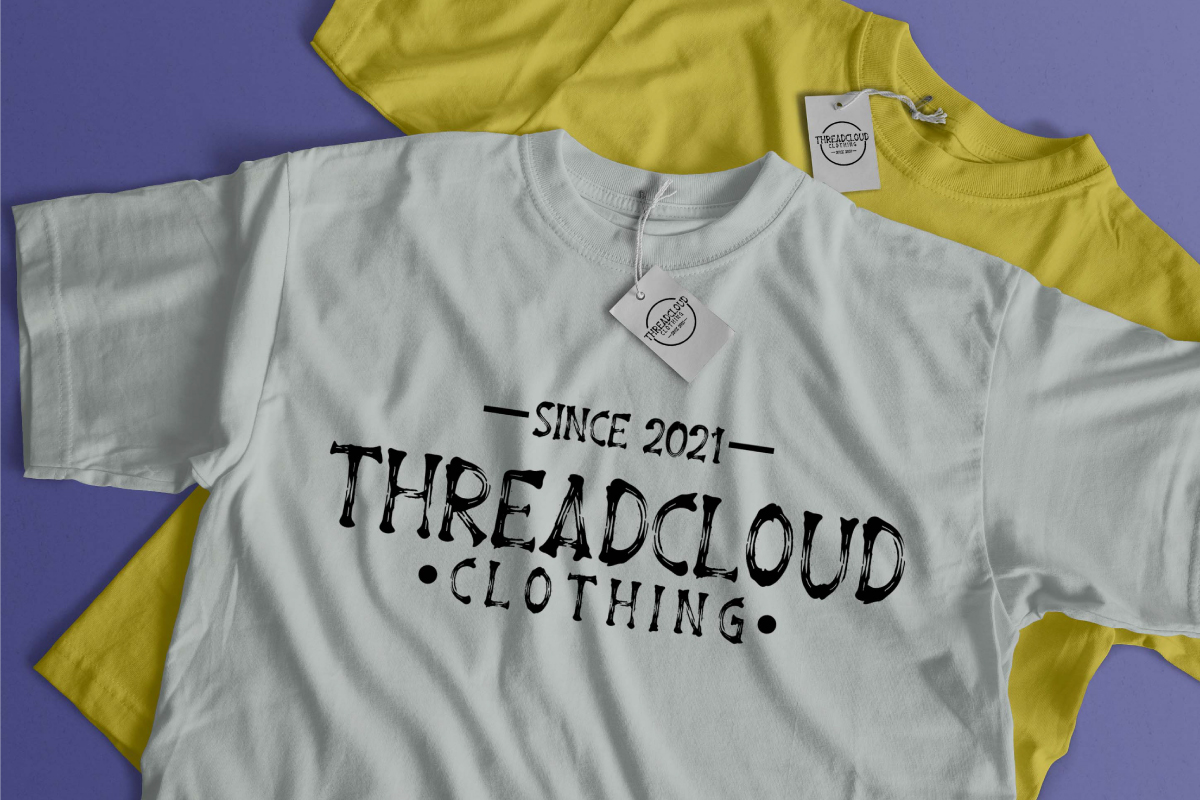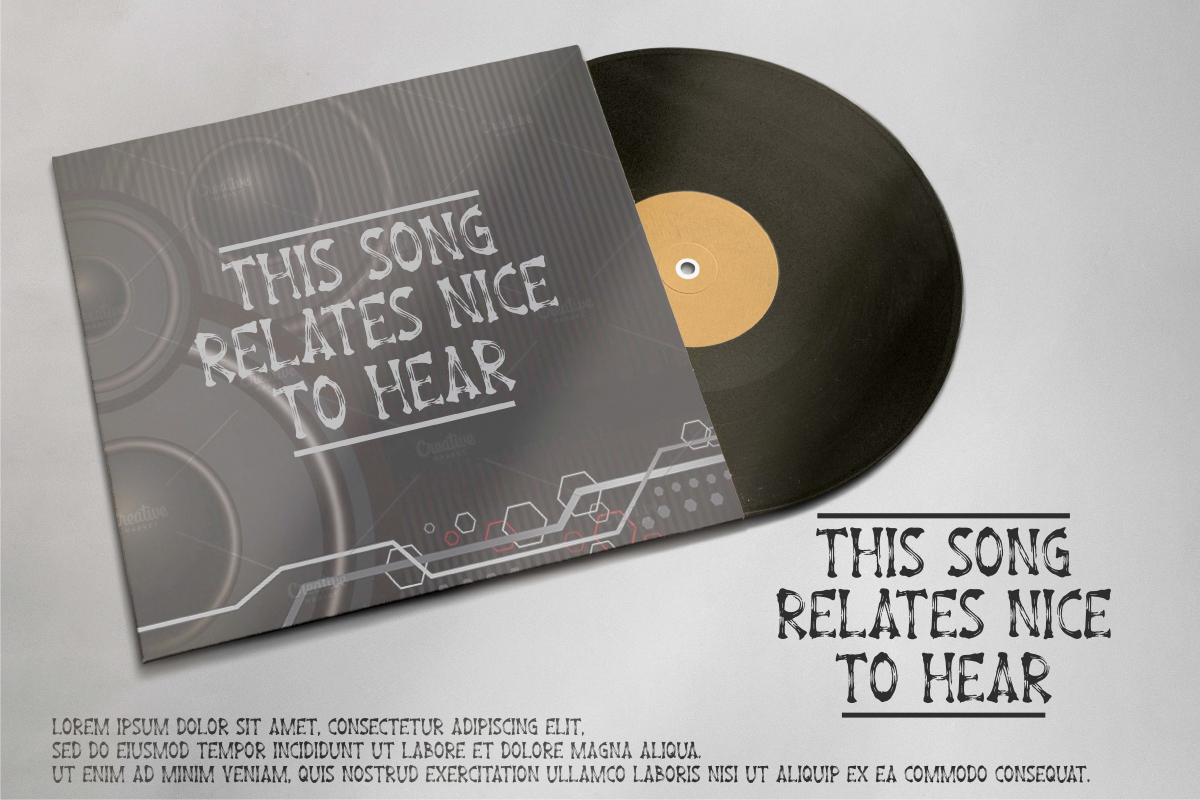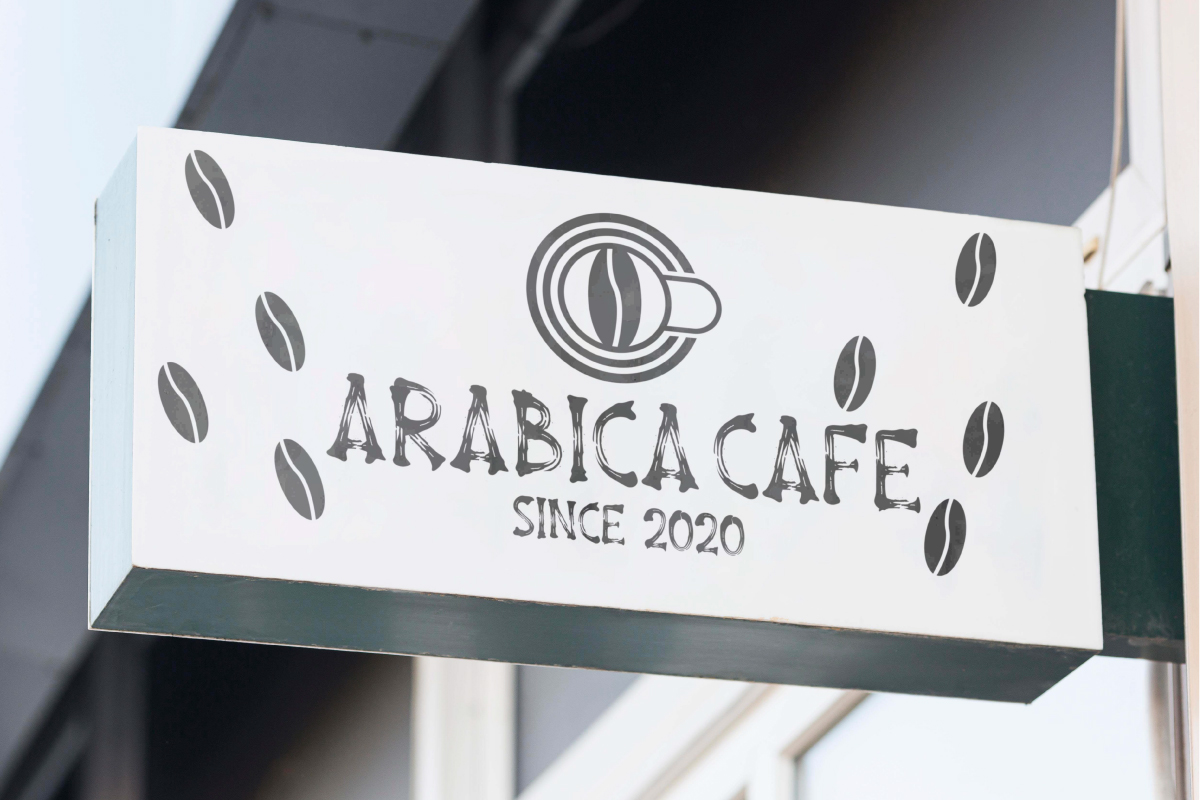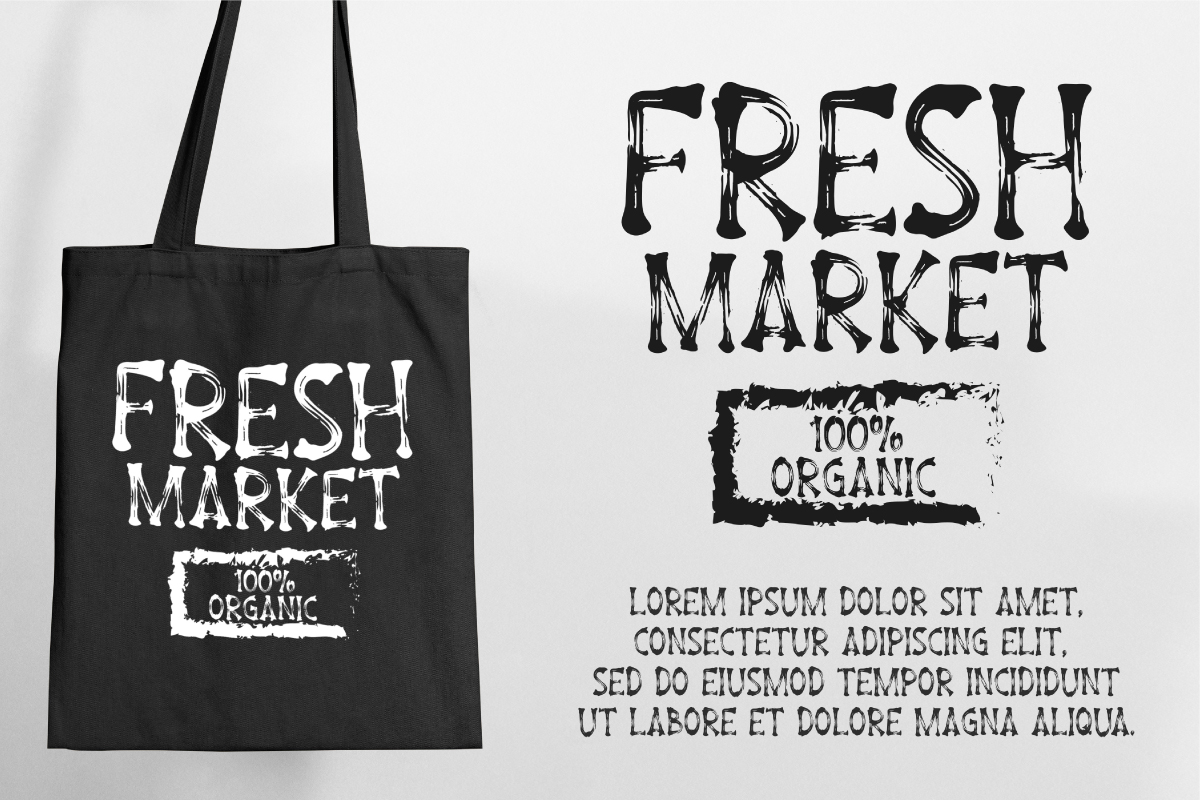
Dark Secret Font
Dark Secret Display Font
This is carefully crafted to create a unique look and still easy to read. This font would be perfect for business like author, café, entertainment, fashion, horror event, musician, publishing, and will be great for projects that require a horror touch such as brand logo, brochure, business card, creating logo, fashion, label, party invitation, poster, product packaging, signage, etc.